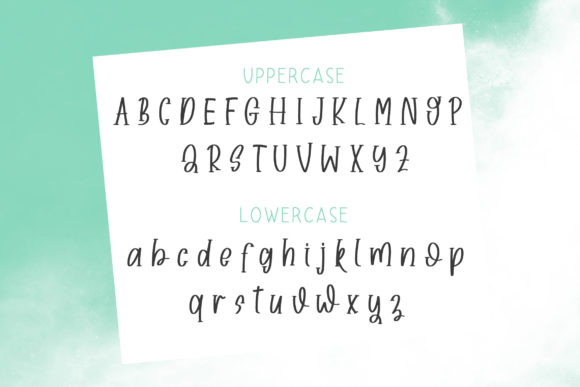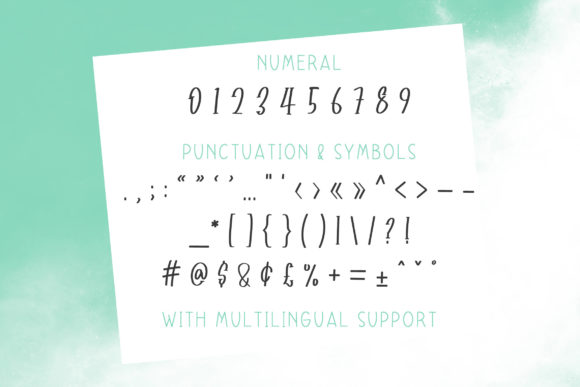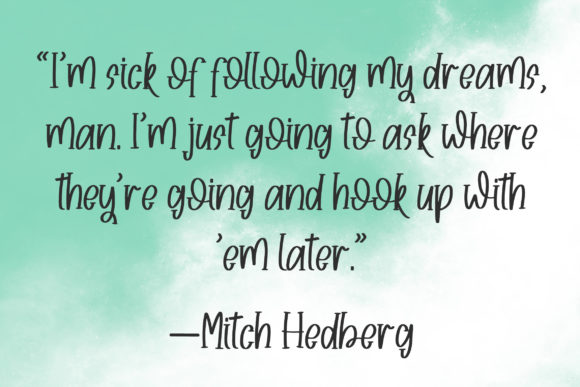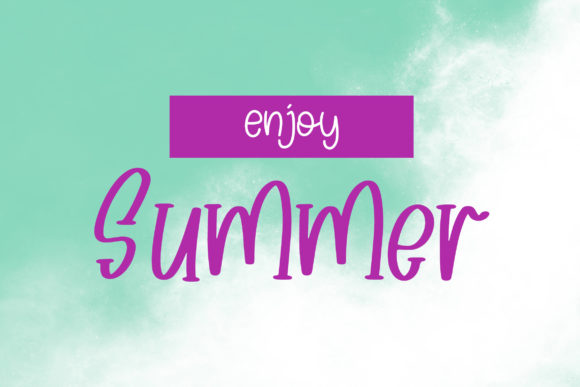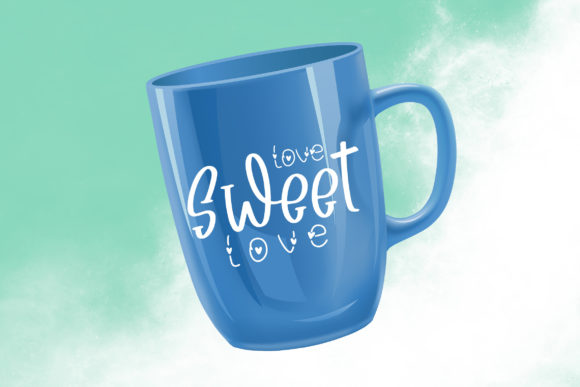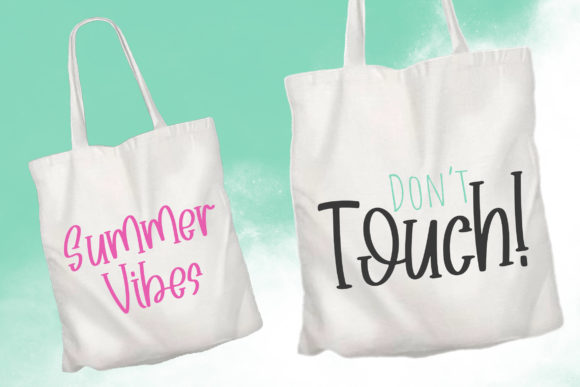
Introduction to Orlandomy Font
Have you ever stumbled upon a design project that seemed perfect, yet the right font was missing? You knew exactly what you wanted – a whimsical, handwritten style that would capture the essence of your creative vision. For designers seeking a unique touch, the Orlandomy Font is an answer to their prayers.
With its sweet and playful personality, the Orlandomy Font is an invaluable resource for designers looking to add a personal touch to their projects. Whether it’s a business card, product packaging, or a social media graphic, this high-quality typeface is sure to elevate the look and feel of any creative endeavor. And the best part? It’s available for free download, complete with a transparent background, making it a breeze to integrate into your design workflow.
As a valuable addition to any designer’s toolkit, the Orlandomy Font is a must-have for anyone looking to take their creative projects to the next level.
Key Features of Orlandomy Font
- Unique, hand-drawn design that adds a touch of whimsy to any creative project
- Resolution-independent design ensures crisp, clear text at any size or resolution
- Perfect for designers and artists looking for a distinctive, high-quality design resource
Honest Review: Orlandomy Font
As a designer, I’m always on the lookout for high-quality design resources that can elevate my creative projects. The Orlandomy Font has been a great addition to my design arsenal. I was impressed by its unique and stylish aesthetic, making it perfect for a variety of design applications.
One of the standout features of the Orlandomy Font is its transparent background, which allows for seamless integration with any design. ✨ The font is also incredibly versatile, suitable for both digital and print designs.
Here are some of the key benefits of the Orlandomy Font:
- Suitable for both digital and print designs
While the Orlandomy Font is an excellent choice for most designers, there are a few limitations to consider: ⚠️ The font may not be suitable for all types of projects, and some users may find the design too bold or overpowering.
Overall, I’m impressed with the Orlandomy Font and would recommend it to designers looking for a high-quality, versatile font for their creative projects.
Getting the Most Out of the Orlandomy Font
For optimal results, use the Orlandomy Font on a transparent background to create a clean and visually appealing design. Experiment with different font sizes, colors, and arrangements to enhance the creative project.
Common Use Cases for the Orlandomy Font
The Orlandomy Font is suitable for a variety of creative projects, including logo designs, business cards, and social media graphics. Its high-quality design and transparent background make it an ideal choice for any project requiring a professional and modern look.